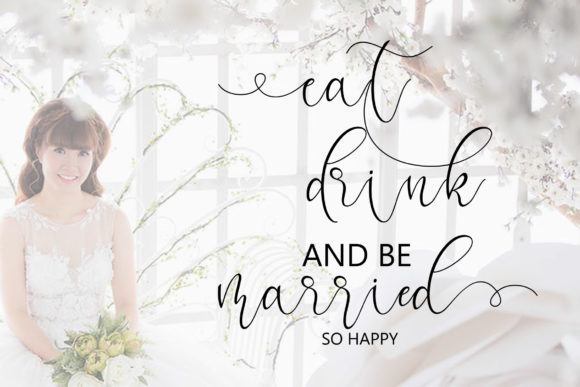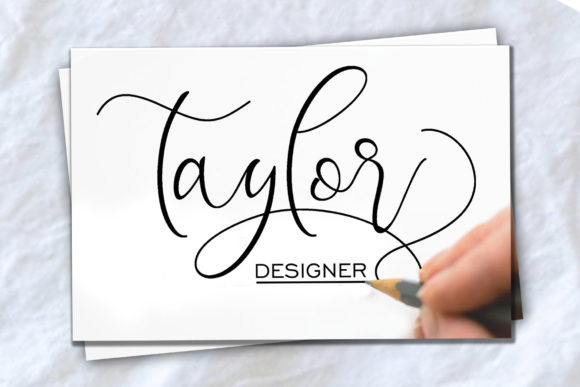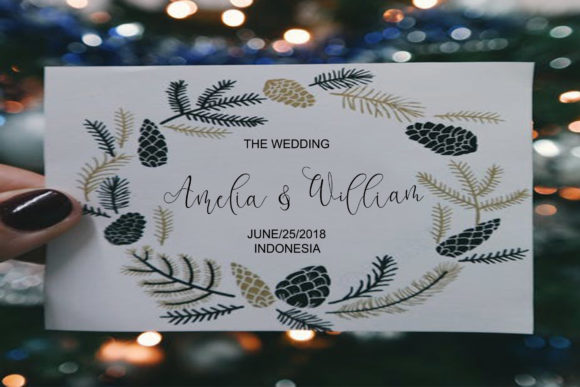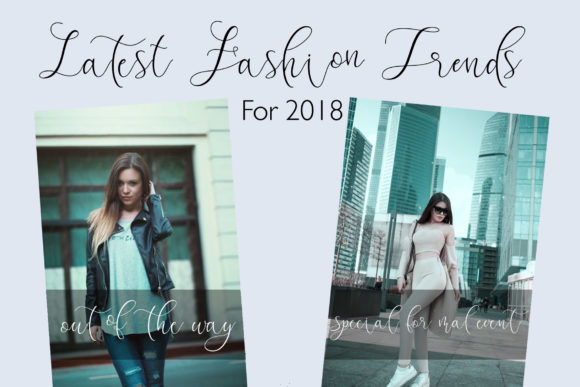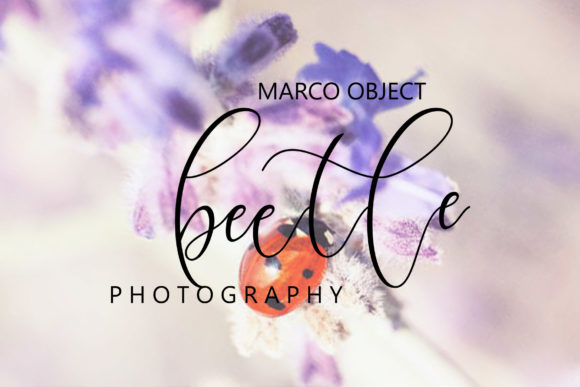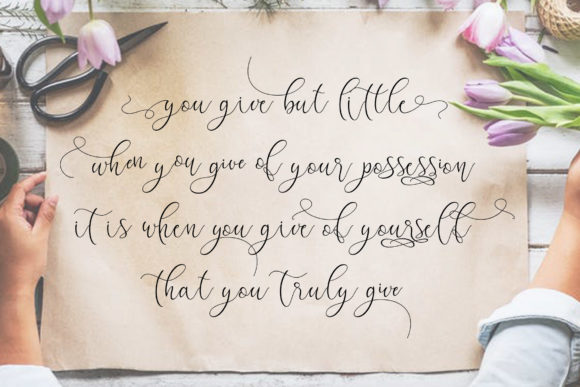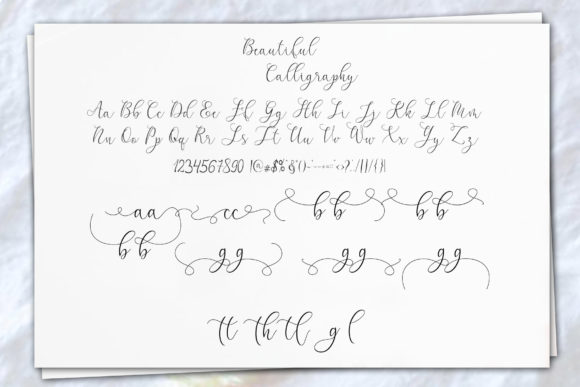
Mikayla Script Font
About Mikayla Script Font
The Mikayla is a modern script font. Every single letter has been carefully crafted to make your text look beautiful.
With this modern script font, you will create amazing invitations, greeting cards, posters, name cards, quotes, blog headers, branding, logos, fashion, apparel, letter, and much more!